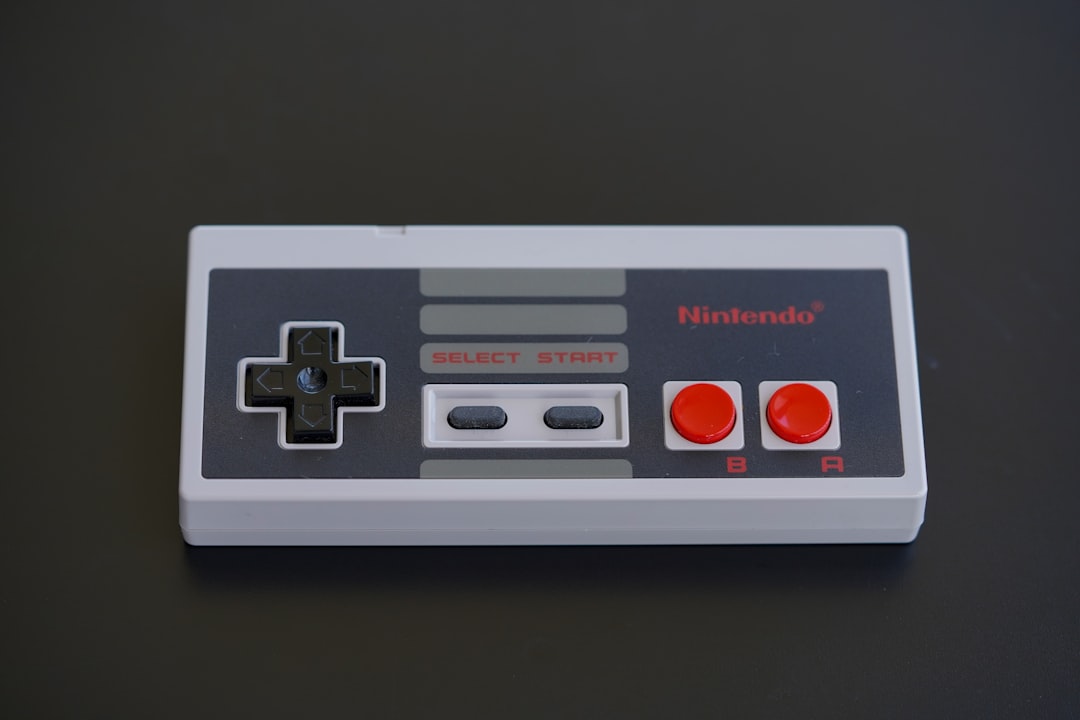
What Font Does Nintendo Use?
Quick answerThe Nintendo logo is custom rounded lettering — the smooth, even “Nintendo” wordmark — not a font you can buy. Fan recreations exist online. The closest free lookalikes are friendly rounded sans faces like Baloo and Varela Round on Google Fonts.
If you want the Nintendo font for a fan banner, thumbnail, or retro project, the famous “Nintendo” wordmark isn’t a downloadable typeface — it’s custom lettering. This guide explains what the logo actually is, which free rounded fonts match its friendly look, and what licensing realities to keep in mind before you use a lookalike.
What font is the Nintendo logo?
The Nintendo wordmark is custom rounded lettering — smooth, even-weight letters with softly rounded terminals, often shown inside the familiar red “racetrack” capsule. It was drawn for the brand rather than set in a retail font, which is why you won’t find an exact match in any font menu. The rounded, approachable shapes are central to Nintendo’s friendly, family-focused identity.
Because it’s bespoke artwork, the wordmark is trademarked. A similar rounded font lets you echo the style, but it does not give you any right to reproduce the official Nintendo logo.
Is there a “Nintendo font” you can download?
You’ll find fan recreations of the Nintendo wordmark on font directories, made to imitate the rounded logo letters. These are unofficial and were not made by Nintendo. They’re handy for non-commercial fan work, but treat them as approximations of the look rather than the genuine brand artwork — and they carry no rights to the Nintendo brand itself.
What are the best free Nintendo font alternatives?
For that friendly, rounded Nintendo feel without an unofficial clone, a few free rounded sans faces get you close:
• Baloo (free) — a chunky, fully rounded display sans on Google Fonts. Its soft, even letterforms make it the best free match for Nintendo’s playful wordmark energy.
• Varela Round (free) — a clean, geometric rounded sans that’s lighter than Baloo. Great when you want the rounded feel at smaller sizes and for UI text. On Google Fonts.
• Quicksand (free) — a geometric sans with rounded terminals, useful for a modern, friendly take on the look.
Nintendo font and free alternatives
Use case Official / source look Free lookalike Where to get it
Logo wordmark Custom rounded lettering Baloo Google Fonts (free)
Rounded UI / smaller text Custom rounded lettering Varela Round Google Fonts (free)
Fan recreation of the wordmark Custom lettering Unofficial fan font Fan font sites (personal use)
How do I recreate the Nintendo logo look?
Set your text in Baloo for the chunky, rounded wordmark feel, or Varela Round for a lighter, cleaner version. Even out the spacing, and if you want the classic effect, place the letters inside a rounded red capsule shape — that “racetrack” frame is as recognizable as the lettering itself, so use it to evoke the style rather than copying the exact mark. To pair a rounded display headline with a readable body face, our font pairing guide covers reliable combinations.
Why does Nintendo use rounded lettering?
Rounded letterforms are a deliberate signal. Soft, even curves feel friendly, safe, and family-friendly — exactly the image Nintendo has cultivated for decades against a backdrop of more aggressive, edgy gaming brands. The smooth wordmark inside the red racetrack capsule reads as approachable to a five-year-old and a forty-year-old alike, and it scales cleanly from a cartridge label to a storefront sign. Drawing it as custom lettering, rather than setting it in an existing rounded font, gave the brand full control over the proportions and let the capsule and wordmark work as one locked unit. That’s why a free rounded sans like Baloo or Varela Round gets you the right feel but not the exact mark — and why the red capsule does as much identifying work as the letters themselves. When you separate the two elements, you can borrow the rounded warmth for your own design without copying the trademarked wordmark.
What font is the Nintendo logo?
The Nintendo logo uses custom rounded lettering — smooth, even-weight letters with softly rounded ends, often shown in a red capsule. It was drawn for the brand rather than taken from a retail font, so there’s no official “Nintendo” font. Fan recreations imitate the look unofficially.
What font does the Nintendo Switch use?
Nintendo uses custom and licensed interface fonts across its systems rather than one public typeface, and these aren’t distributed for download. When people ask about “the Nintendo font,” they usually mean the rounded logo wordmark, whose look is best approximated with a free rounded sans like Baloo or Varela Round.